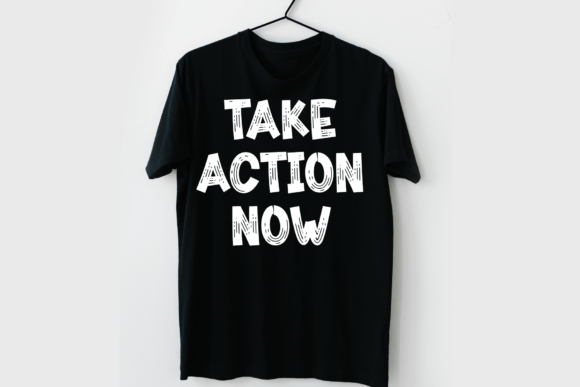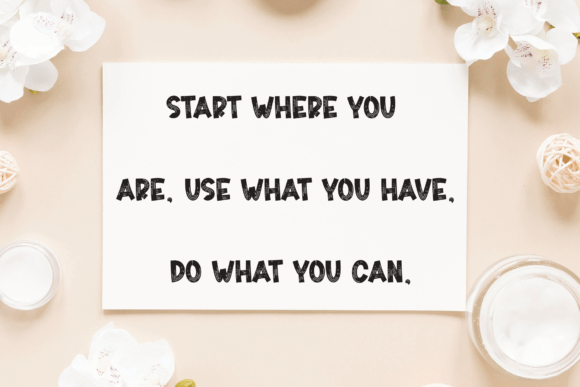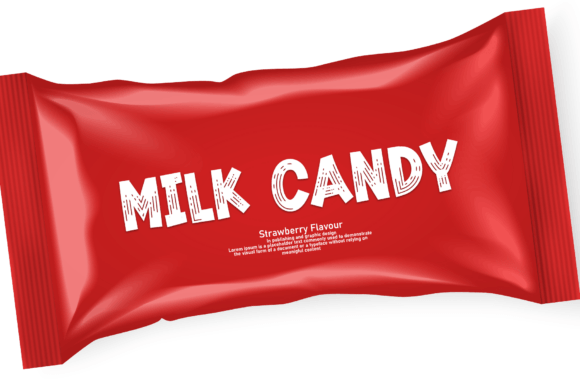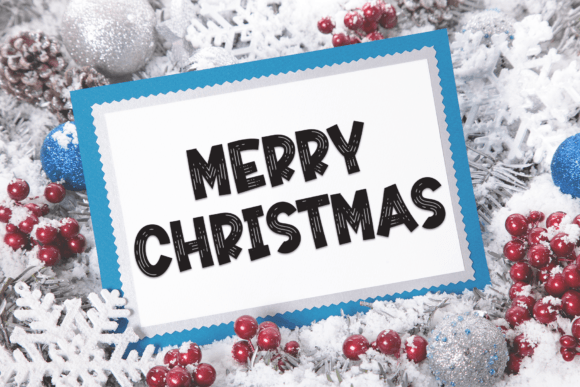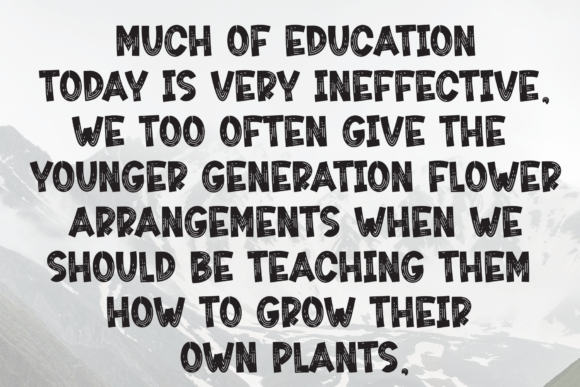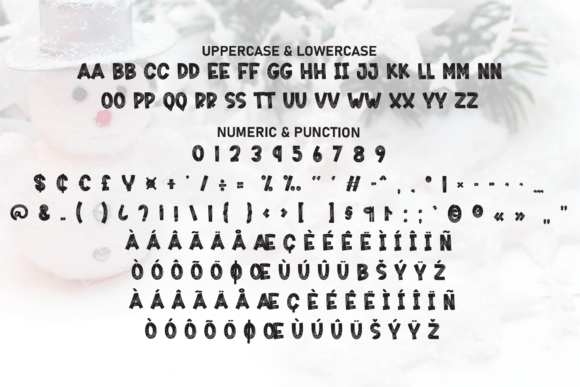
Introducing Brush Snowman Font: The Perfect Winter Wonderland Companion
Are you looking for a font that captures the magic of winter and adds a playful touch to your designs? Look no further than Brush Snowman Font! This delightful, hand-drawn font is perfect for creating a festive and snowy atmosphere in your projects. With its unique brushstroke style, Brush Snowman Font is sure to become your go-to choice for winter-themed designs.
What is Brush Snowman Font?
Brush Snowman Font is a playful, hand-drawn font that features a fun, snowy theme. Its brushstroke style gives it a charming, hand-painted look that’s reminiscent of a child’s winter wonderland drawings. The font’s playful and whimsical design makes it perfect for a variety of projects, from holiday cards and invitations to winter-themed crafts and DIY projects.
Key Features of Brush Snowman Font
• Hand-drawn design: Each letter and character is carefully hand-drawn to give the font a unique, personal touch.
• Brushstroke style: The font features a distinctive brushstroke style that gives it a playful, hand-painted look.
• Snowy theme: The font’s winter wonderland theme is perfect for creating festive and snowy designs.
• Playful and whimsical: Brush Snowman Font is designed to add a touch of fun and playfulness to your projects.
Uses for Brush Snowman Font
Brush Snowman Font is a versatile font that can be used for a wide range of projects, including:
• Holiday cards and invitations: Create festive and fun holiday cards and invitations with Brush Snowman Font.
• Winter-themed crafts: Add a playful touch to your winter-themed crafts, such as snowflakes, garlands, and decorations.
• DIY projects: Use Brush Snowman Font to add a personal touch to your DIY projects, such as signs, banners, and gift tags.
• Digital designs: Use Brush Snowman Font in your digital designs, such as social media graphics, blog posts, and website headers.
Tips for Using Brush Snowman Font
Here are a few tips for getting the most out of Brush Snowman Font:
• Experiment with colors: Try pairing Brush Snowman Font with different colors and textures to create a unique and eye-catching design.
• Add embellishments: Add embellishments, such as snowflakes or holly, to give your design an extra festive touch.
• Mix and match: Mix and match Brush Snowman Font with other fonts and design elements to create a unique and visually appealing design.
Why Designers and Crafters Love Brush Snowman Font
Designers and crafters love Brush Snowman Font for its unique and playful design. The font’s hand-drawn and brushstroke style gives it a charming, personal touch that’s perfect for creating winter-themed designs. With its versatility and ease of use, Brush Snowman Font is a great addition to any designer’s or crafter’s toolkit.
In conclusion, Brush Snowman Font is a playful and festive font that’s perfect for creating winter-themed designs. With its unique brushstroke style and hand-drawn design, it’s sure to add a touch of fun and whimsy to your projects. Whether you’re a designer or crafter, Brush Snowman Font is a great choice for anyone looking to create a winter wonderland atmosphere in their designs.